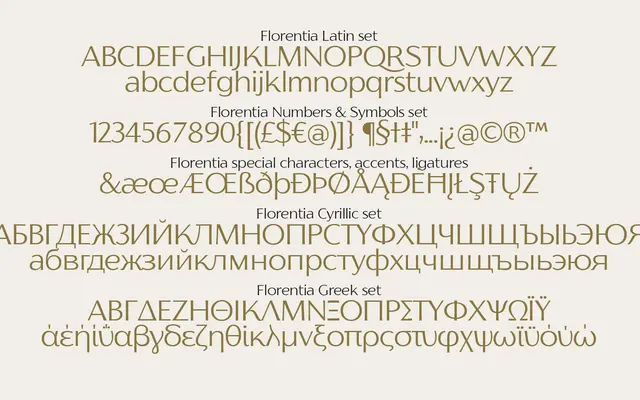
Florentia
Zetafonts · Francesco Canovaro · 2017
A humanist sans-serif by Francesco Canovaro that draws on Roman monumental lettering and Florentine stone carving, extended to cover Latin, Greek and Cyrillic across 196 languages.
Developed from Canovaro's earlier Beatrix Family, Florentia translates the inscriptional spirit of Santa Croce Cathedral into a contemporary sans with a lower x-height and refined proportions. Nine weights from Thin to Fat each carry a matching italic, giving the family 18 styles in total. The character set spans 561 glyphs across Latin, Greek and Cyrillic, with OpenType features including ligatures, stylistic alternates, fractions, ordinals and scientific inferiors.
Described explicitly as a humanist sans-serif, drawing from Roman monumental capitals and stone carvings in Florence, placing it firmly in the humanist sans tradition with classical proportions and a lower x-height.